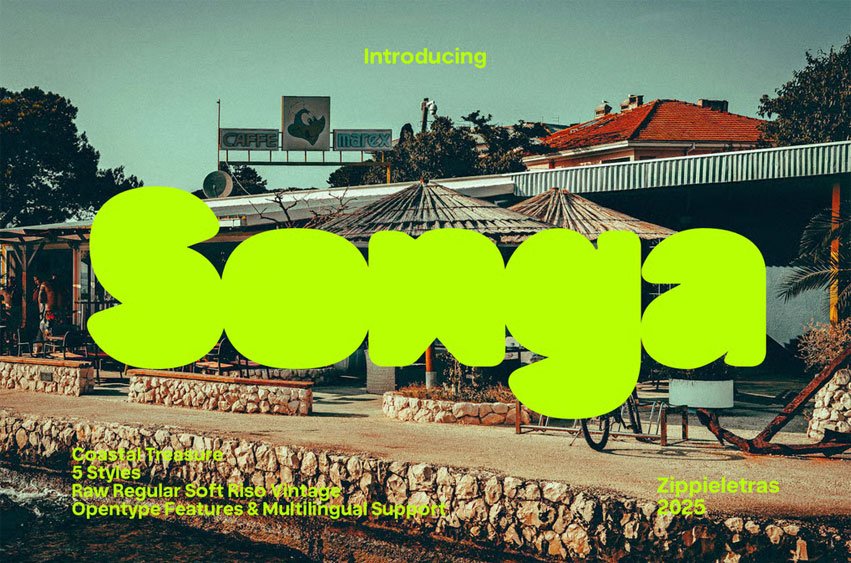
Songa Font is a bold display font inspired by vintage food packaging, paper cut, seaside posters, and vernacular typography found in tropical markets and coastal towns. With its chunky, blocky, and raw personality, Songa captures the essence of holiday nostalgia, making it perfect for brands that want to feel sunny, bold, and full of life.
This typeface is designed for logo design, packaging, poster headlines, websites, and print products. Whether you’re crafting a food brand identity, a coastal café menu, or a vacation-inspired editorial, Songa’s confident letterforms bring instant visual impact and warmth.
Songa comes with 5 distinctive styles
- Raw
- Regular
- Soft
- Riso
- Vintage
each offering a unique texture and mood to match your creative direction. Every style is built to stand out, supported by OpenType features and multilingual support for extended Latin languages.
OpenType Features included
Bring your designs closer to the ocean breeze with Songa a font that blends heritage charm with modern energy, making it a perfect fit for creative professionals who want their typography to leave a bold impression.